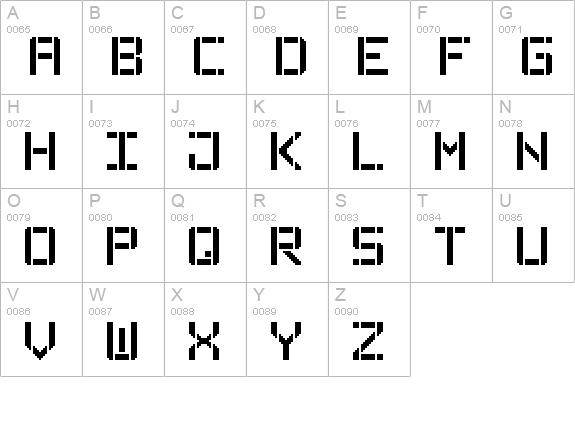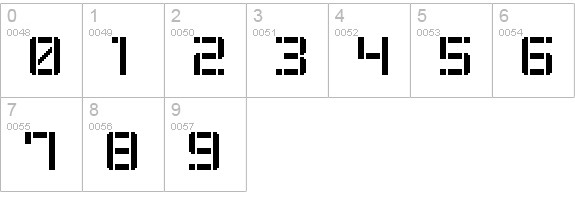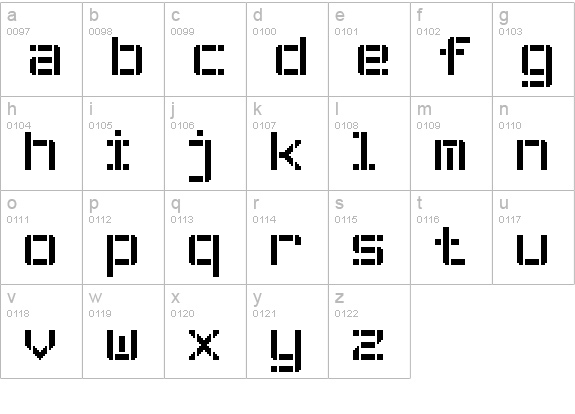
Stencil Pixel-7 Font Details
The Stencil Pixel-7 font is a modern and eye-catching typeface that will definitely make your designs stand out. Its unique stencil design adds a touch of contemporary style to any project, making it perfect for posters, logos, and even websites. This font features a pixelated appearance, giving it a retro and nostalgic feel. Each character is meticulously designed with clean lines and sharp edges, ensuring legibility and readability at any size. Whether you're creating a vintage-inspired design or a futuristic concept, the Stencil Pixel-7 font will effortlessly bring your ideas to life. One of the best things about this font is that it is available for free. You can easily download it from FontsMarket.com, a reliable and trusted source for high-quality fonts. With just a few clicks, you can have this amazing font in your collection and start using it in your projects right away. The Stencil Pixel-7 font is versatile and adaptable, making it suitable for a wide range of design purposes. Its bold and attention-grabbing appearance makes it perfect for headlines, titles, and banners. Its unique stencil design also adds a touch of creativity to any text, giving it a distinct and memorable look. Whether you're a professional designer or someone who simply wants to add a touch of style to your personal projects, the Stencil Pixel-7 font is a must-have. Its modern yet nostalgic aesthetic, combined with its ease of use and availability as a free download, make it a valuable addition to any font library. Experience the power of the Stencil Pixel-7 font and let your creativity soar. Download it for free at FontsMarket.com and unlock a world of possibilities for your designs.